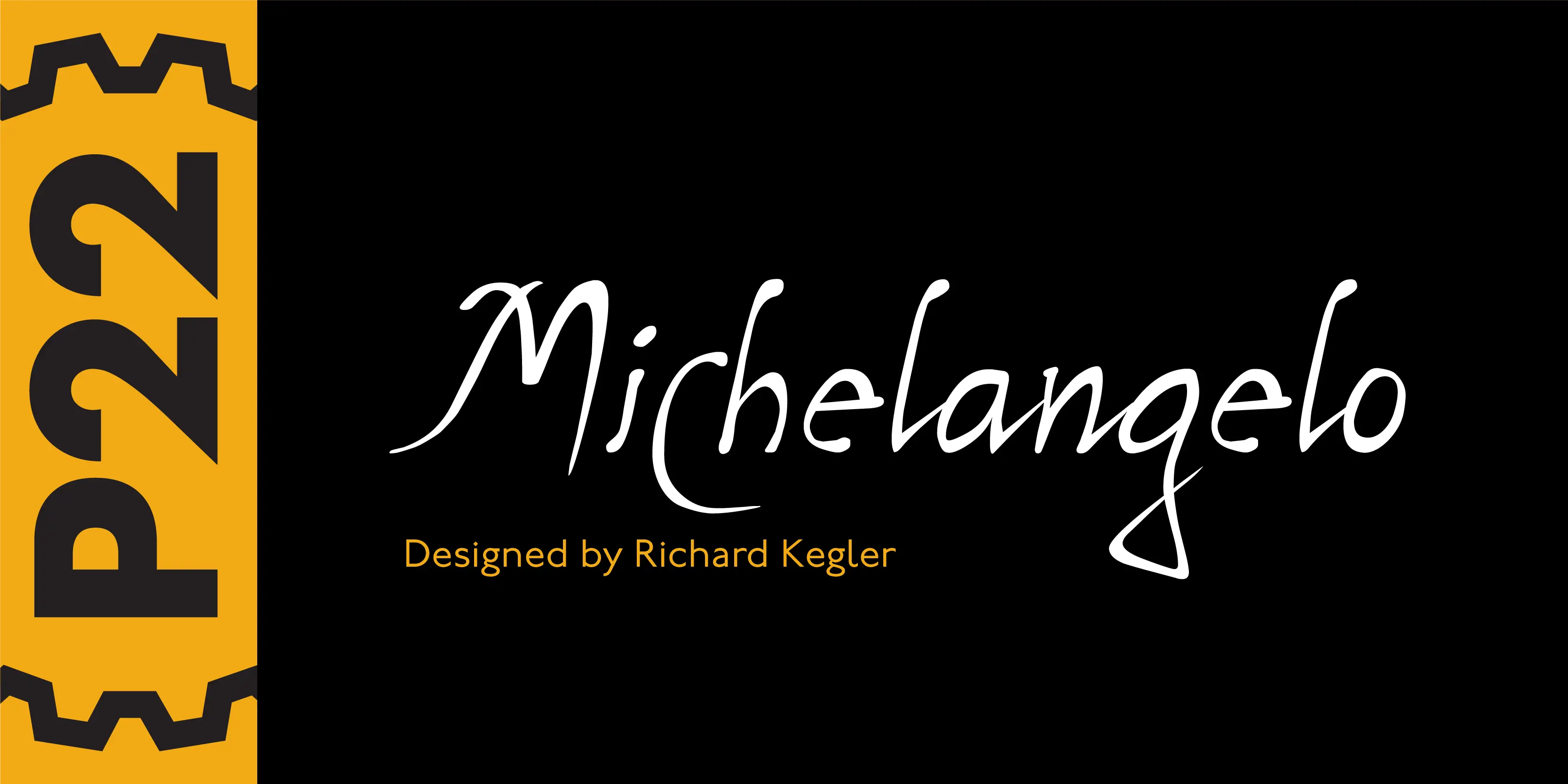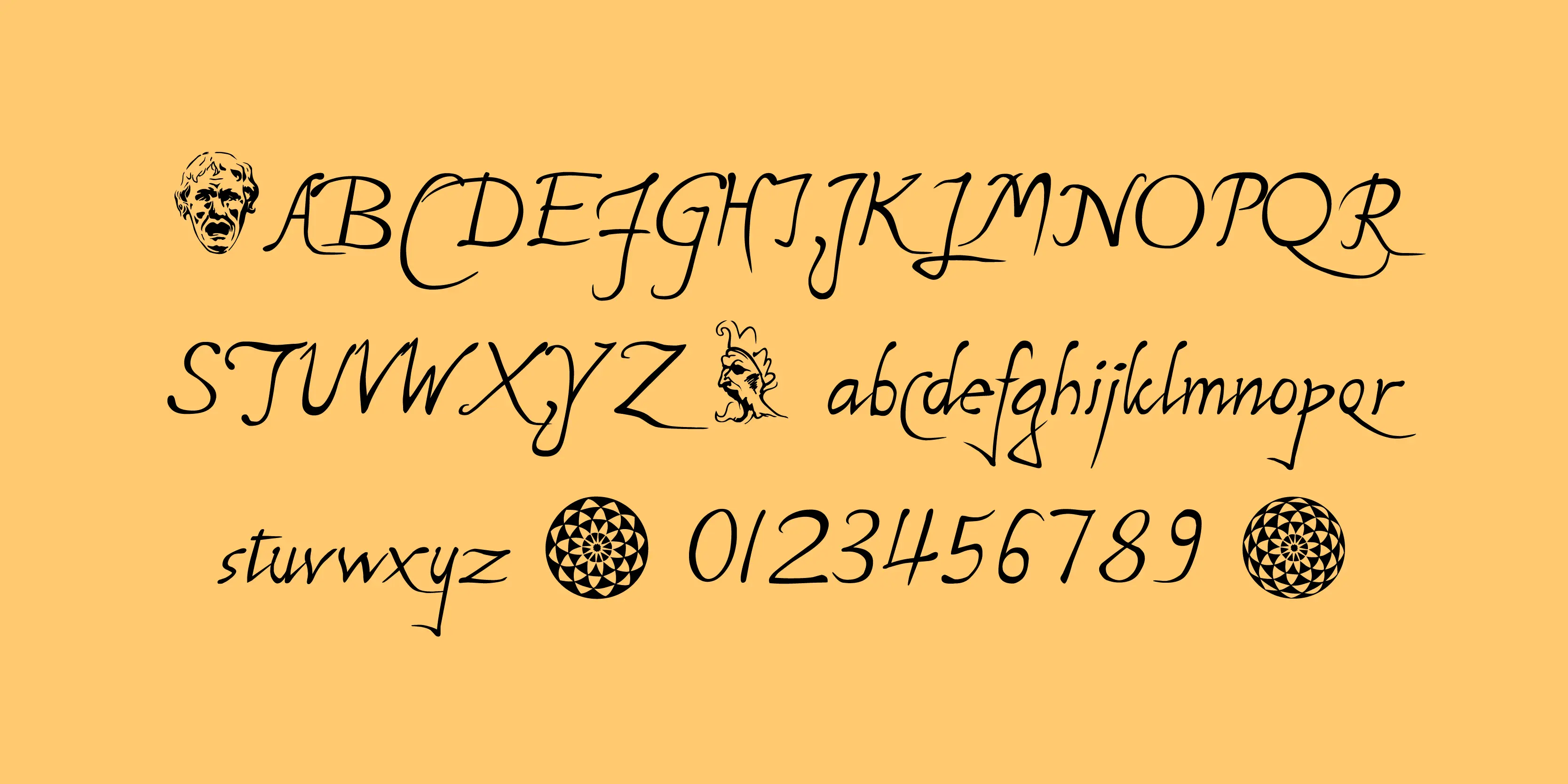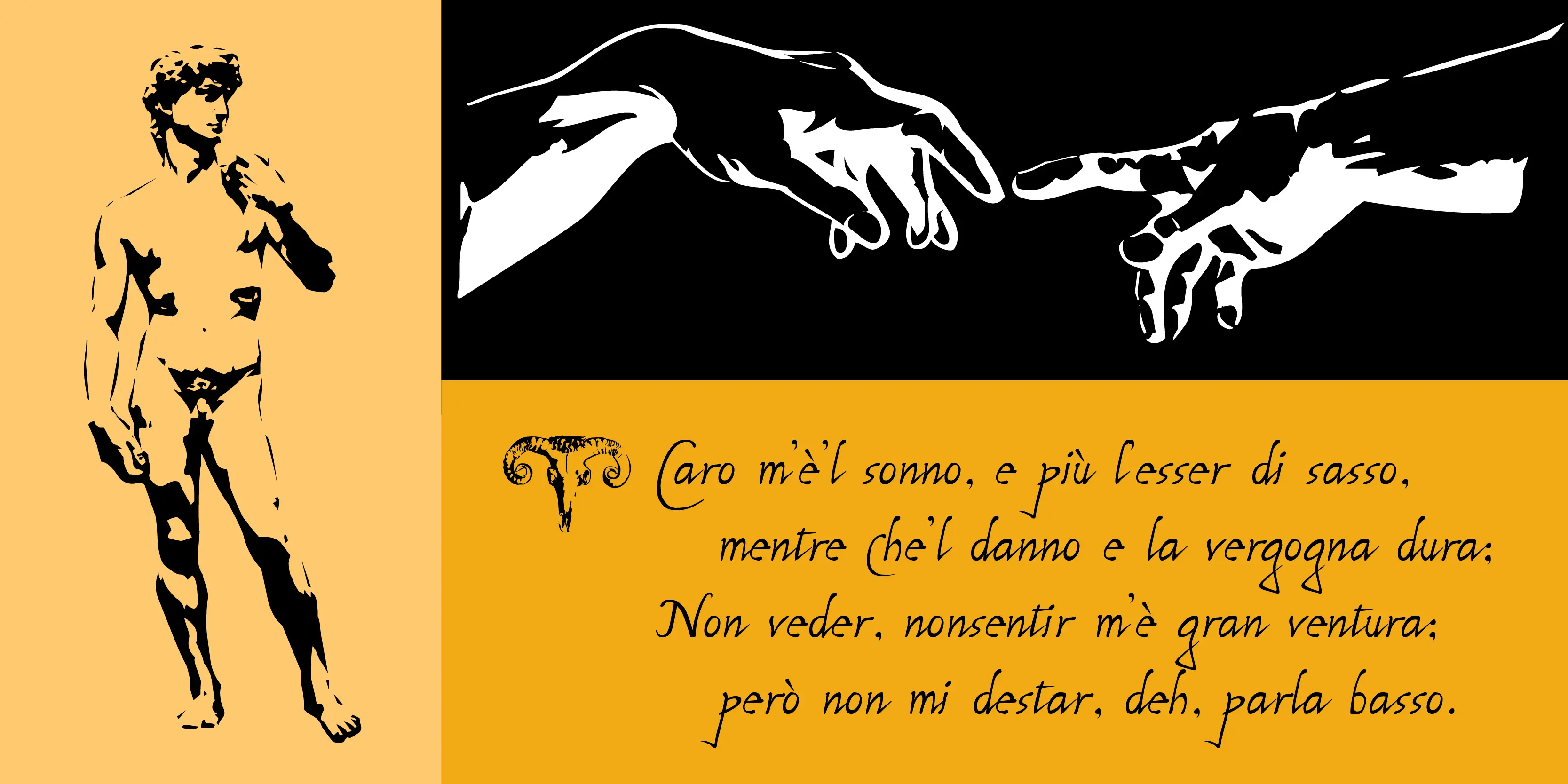
Michelangelo Font Family
Michelangelo
Michelangelo Buonarroti (1475–1564) is celebrated now as he was in his own time for a ‘universal genius’ which he applied to sculpture, painting, architecture, poetry and anatomical study during the course of a 70-year career that established him as a central figure in the development of the Italian Renaissance. Among his most well-known creations are the painting of the Sistine Chapel, the Pietà and David. The Michelangelo font was created in association with the Philadelphia Museum of Art and originally released with the Rodin fonts as a 4-font set as a tribute to the achievements of these extraordinary artists.